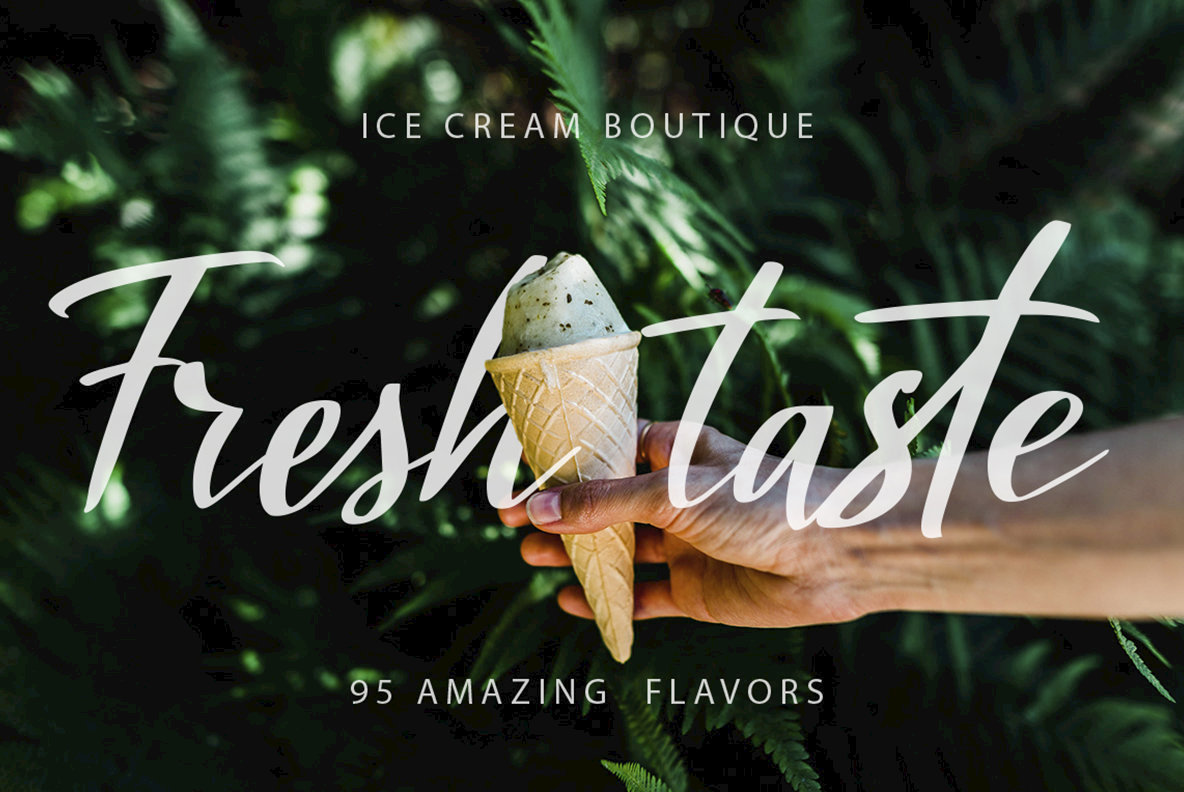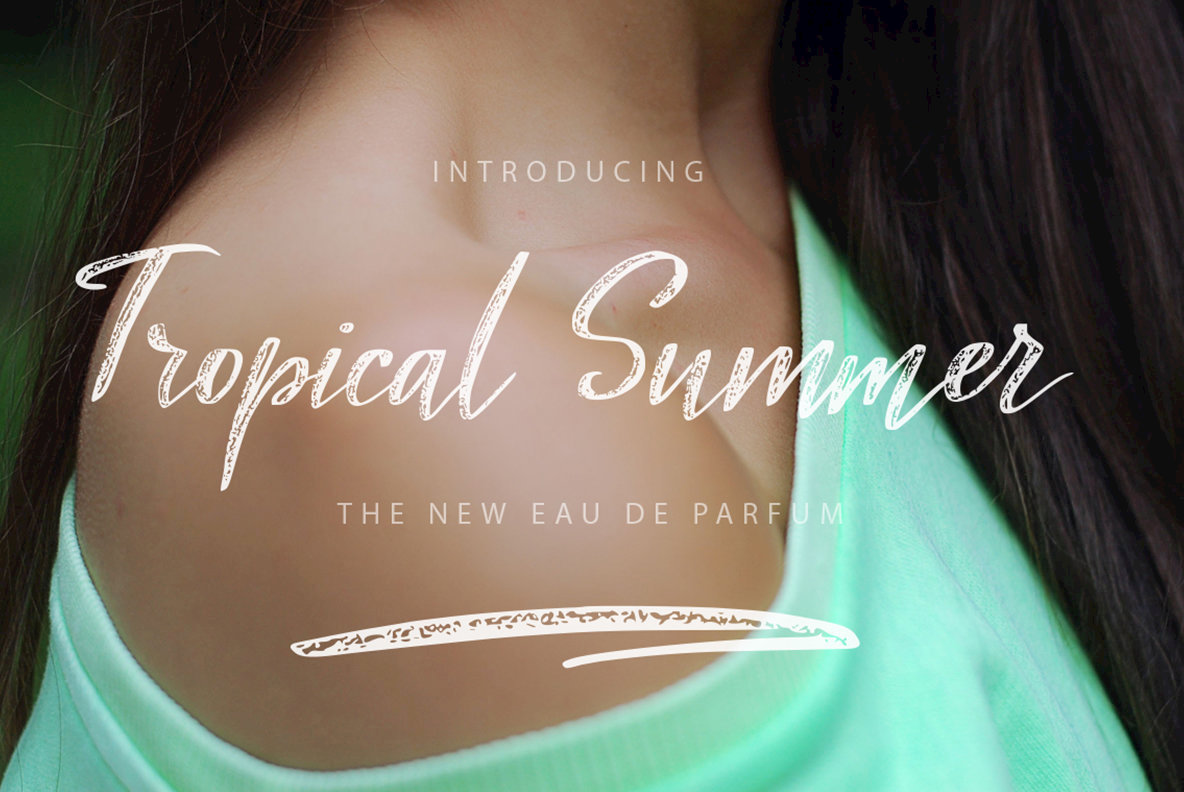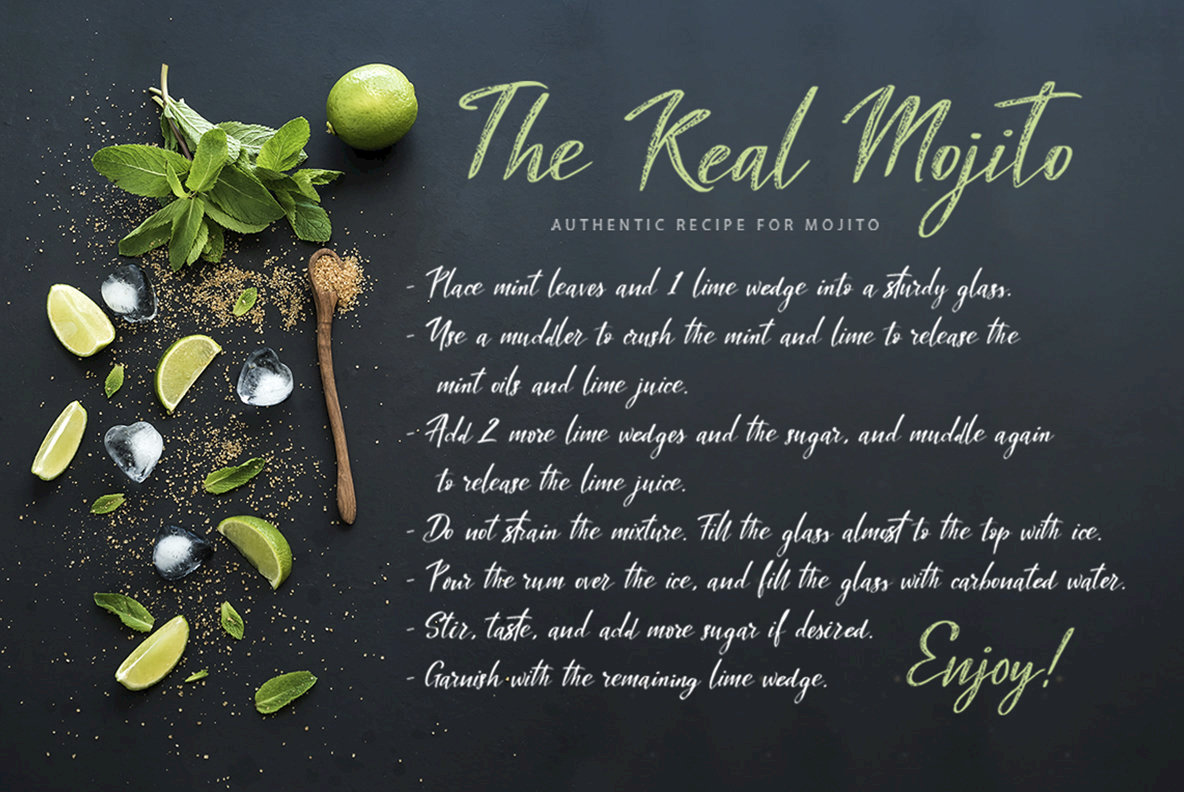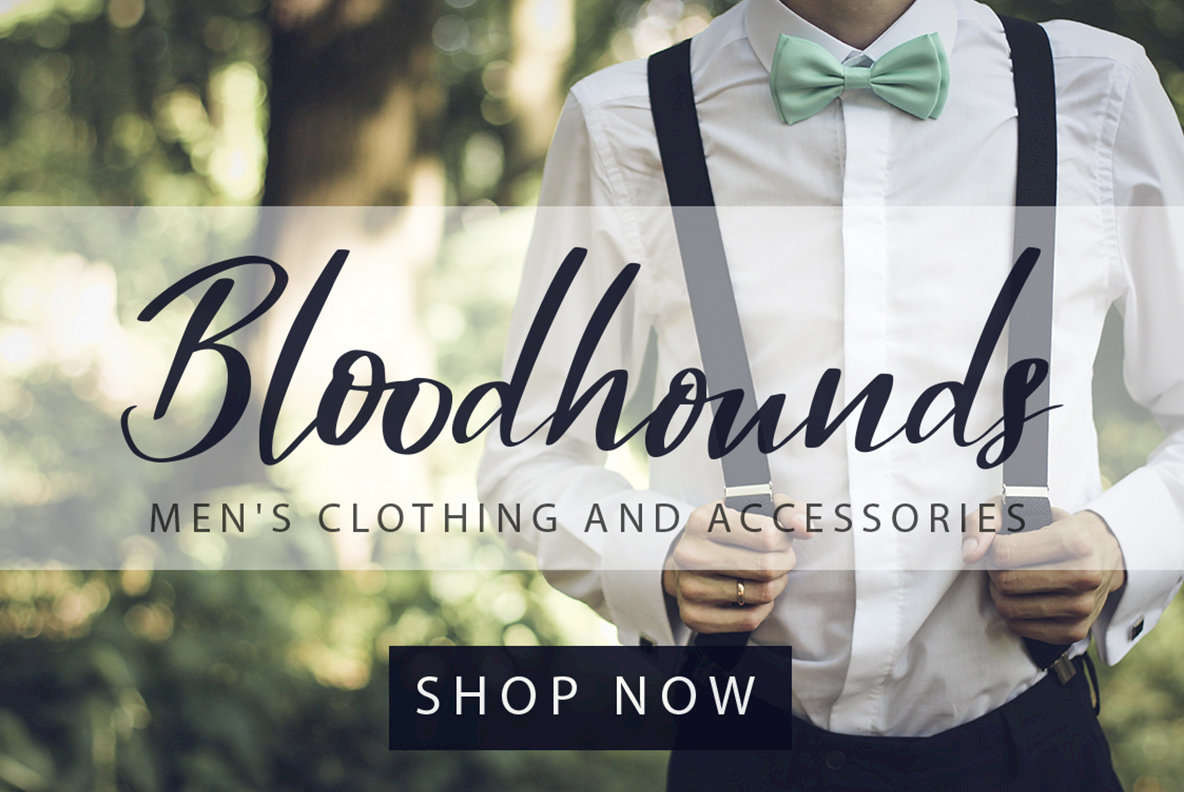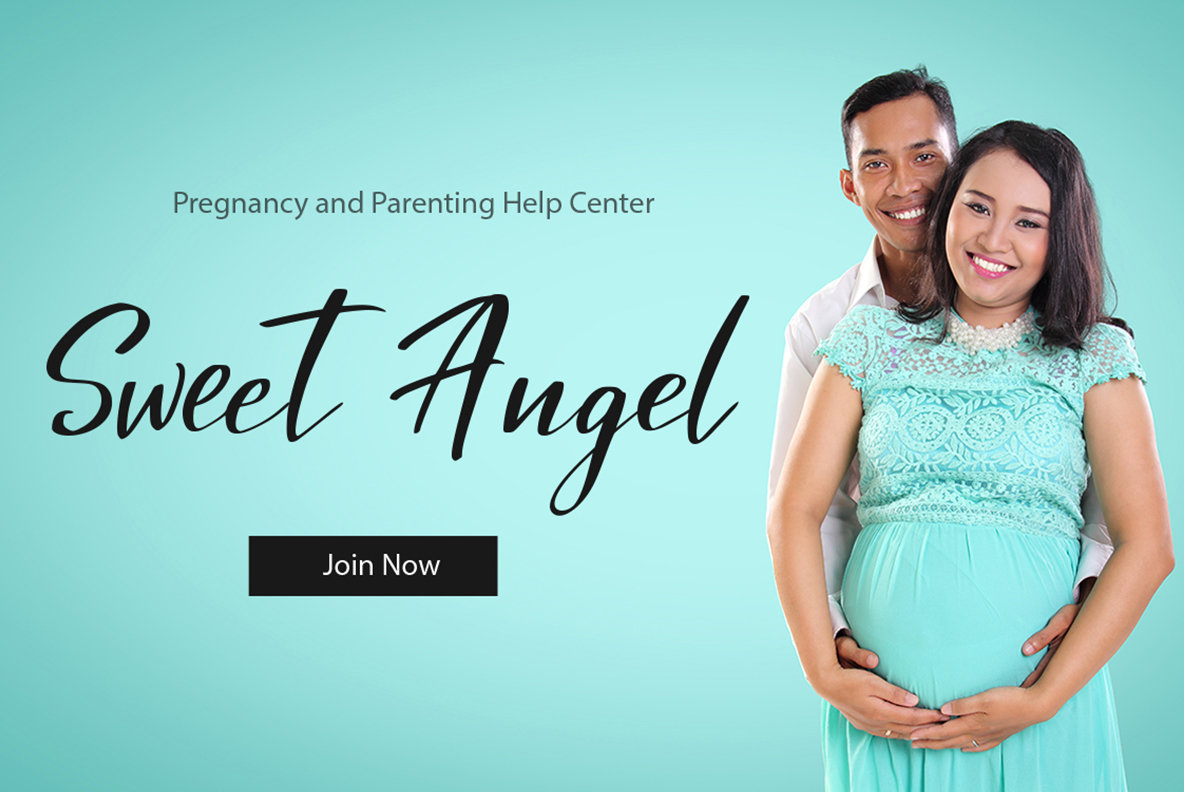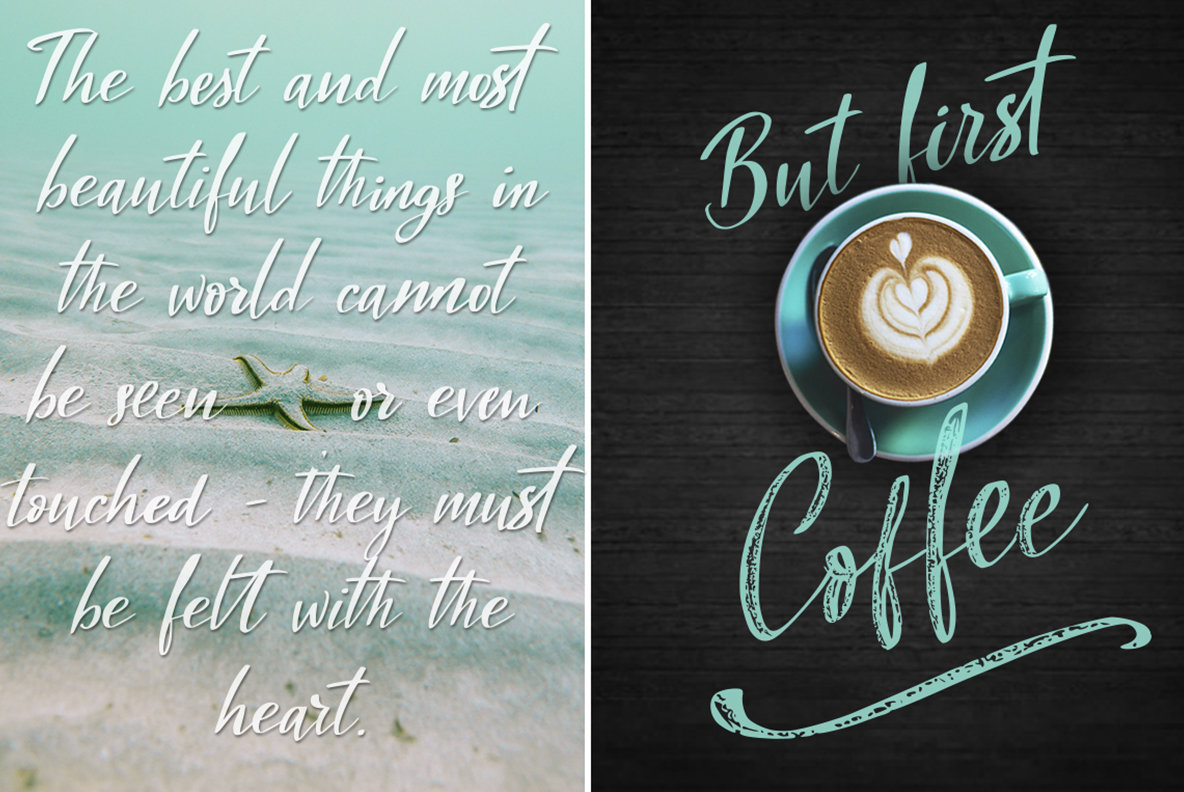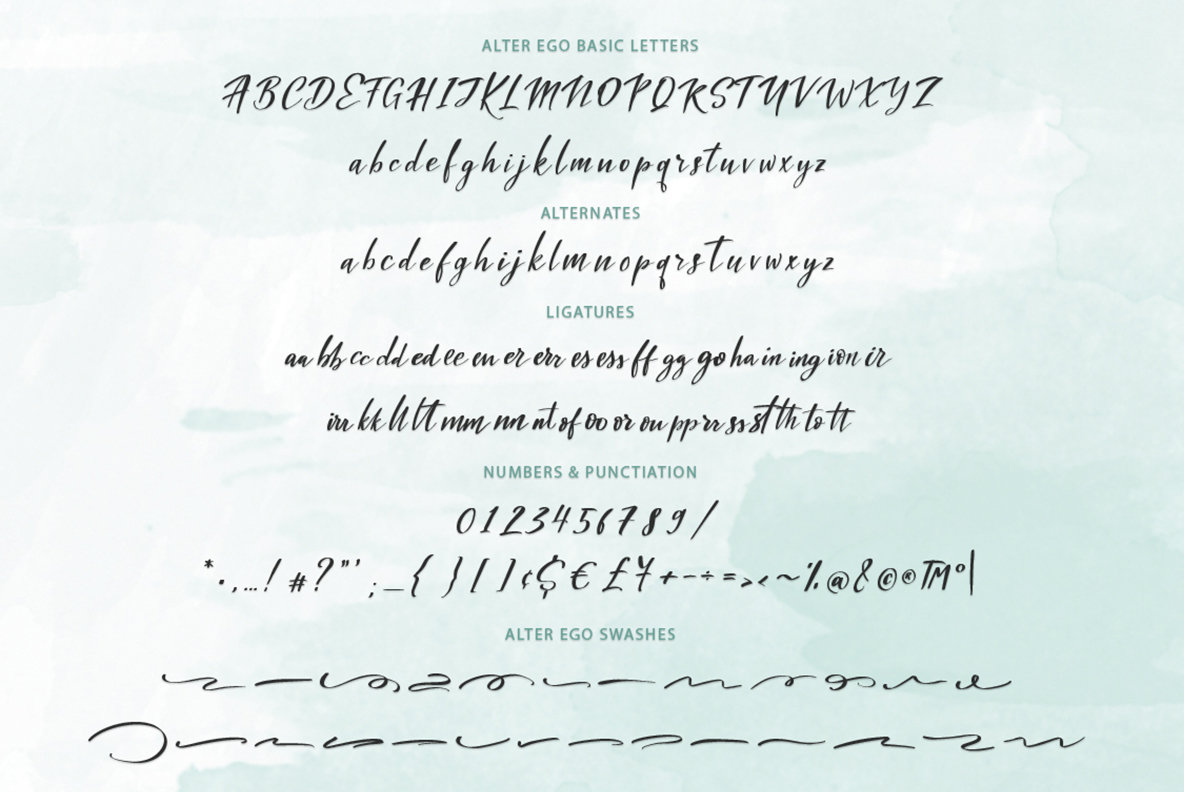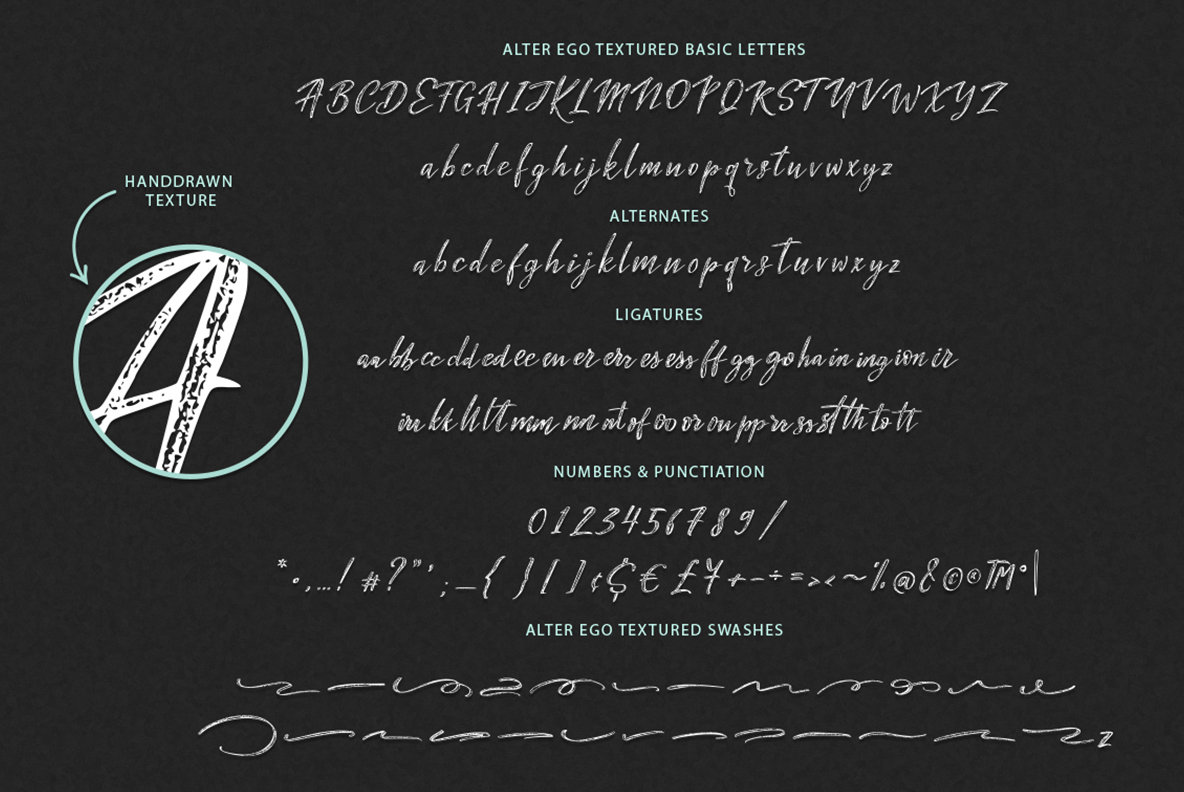
Alter Ego Font
Introducing Alter Ego! A Perfectly Script new font pair with two extra fonts.
These two amazing fonts come with clean and textured versions. You will also receive two extra fonts - with textured and clean swashes. Casual style, large amount of ligatures and alternatives in each font are guaranteed to give your text a personal, light, custom-made feel.
Goodlooking and creative, together or apart they were created for beautiful typographic projects, amazing designs, like greeting cards, t-shirts, posters, mugs, branding materials, photography overlays and so much more!
Font includes multilingual support. Western European, Central European and South Eastern European languages are included.